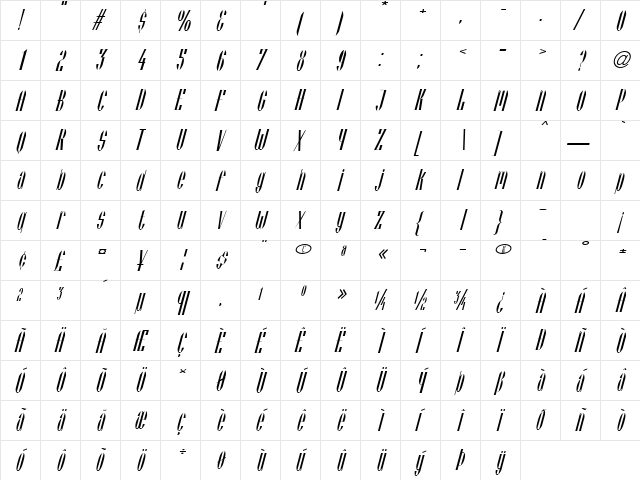
Vienese Italic
Design Context for Vienese Typeface
Vienese offers clean, dependable letterforms without strong stylistic allegiance, making it a practical choice for designers who need flexibility. Its italic angle brings a sense of urgency and motion to the letterforms.
Pro Tip: Use Vienese for emphasis, pull quotes, and subheadings where its slanted energy can add rhythm to the layout.